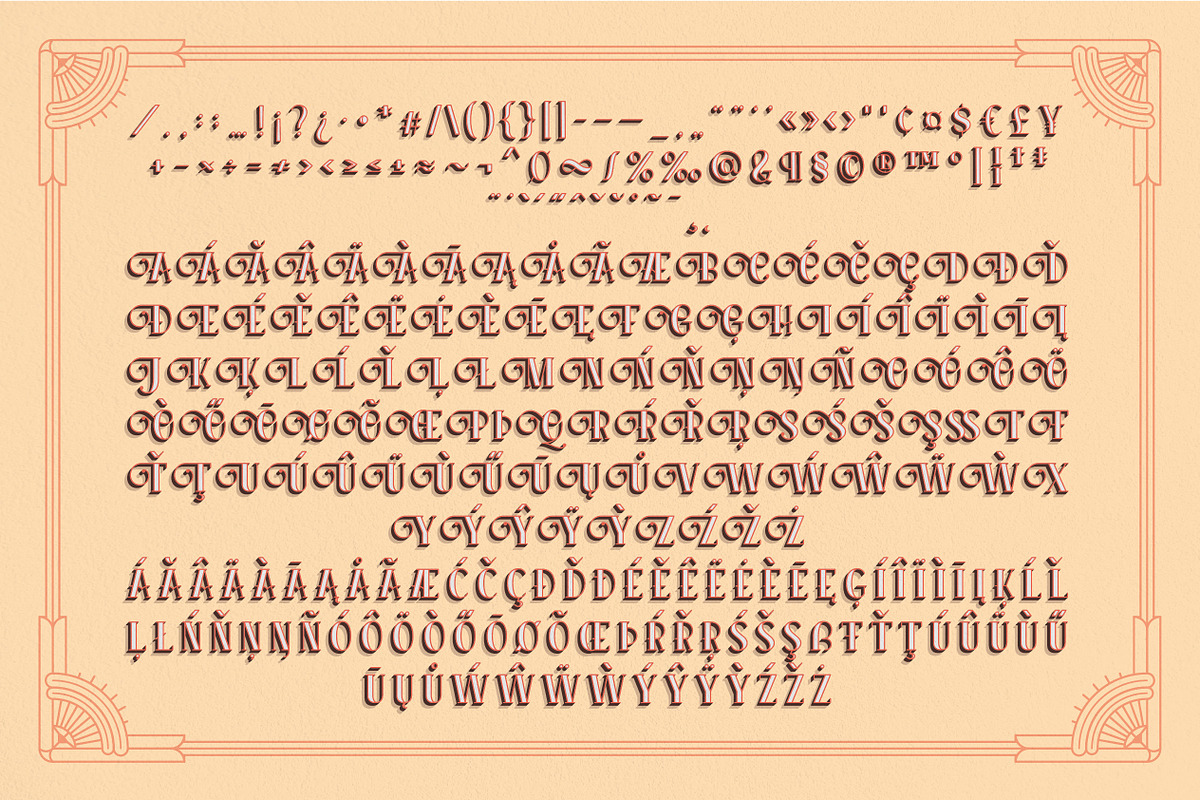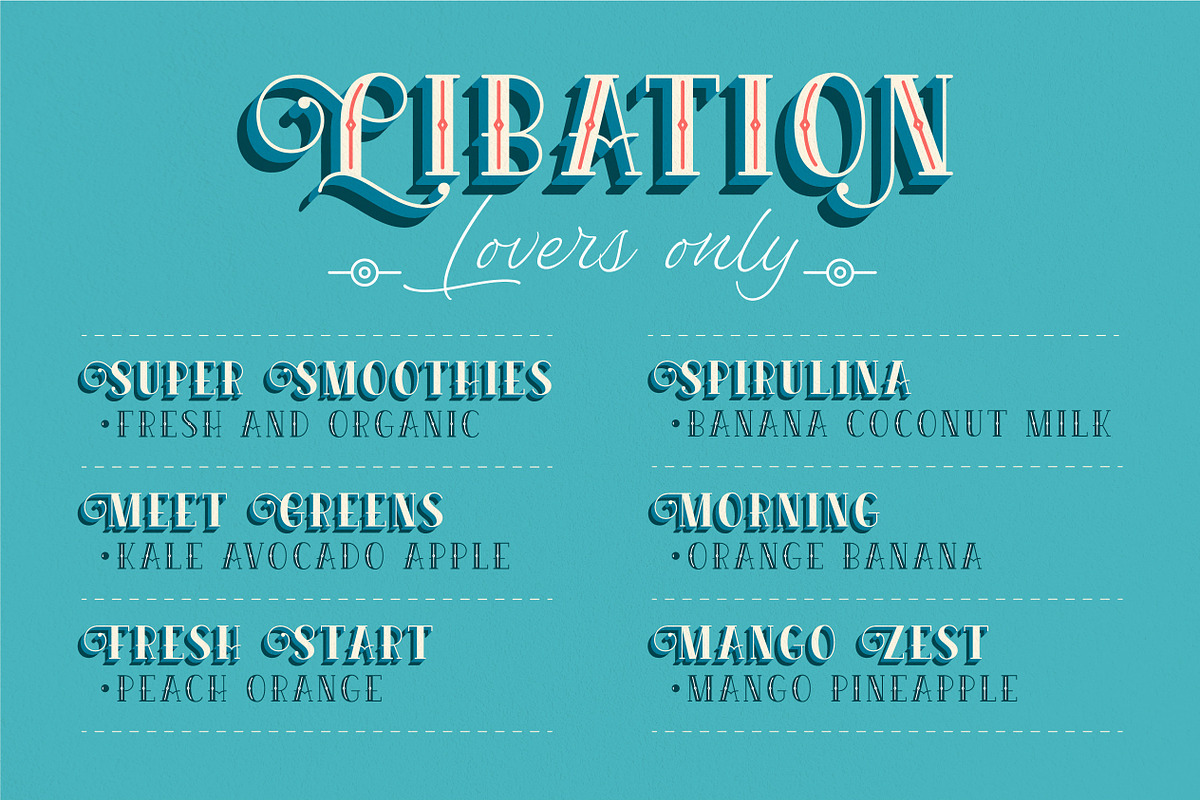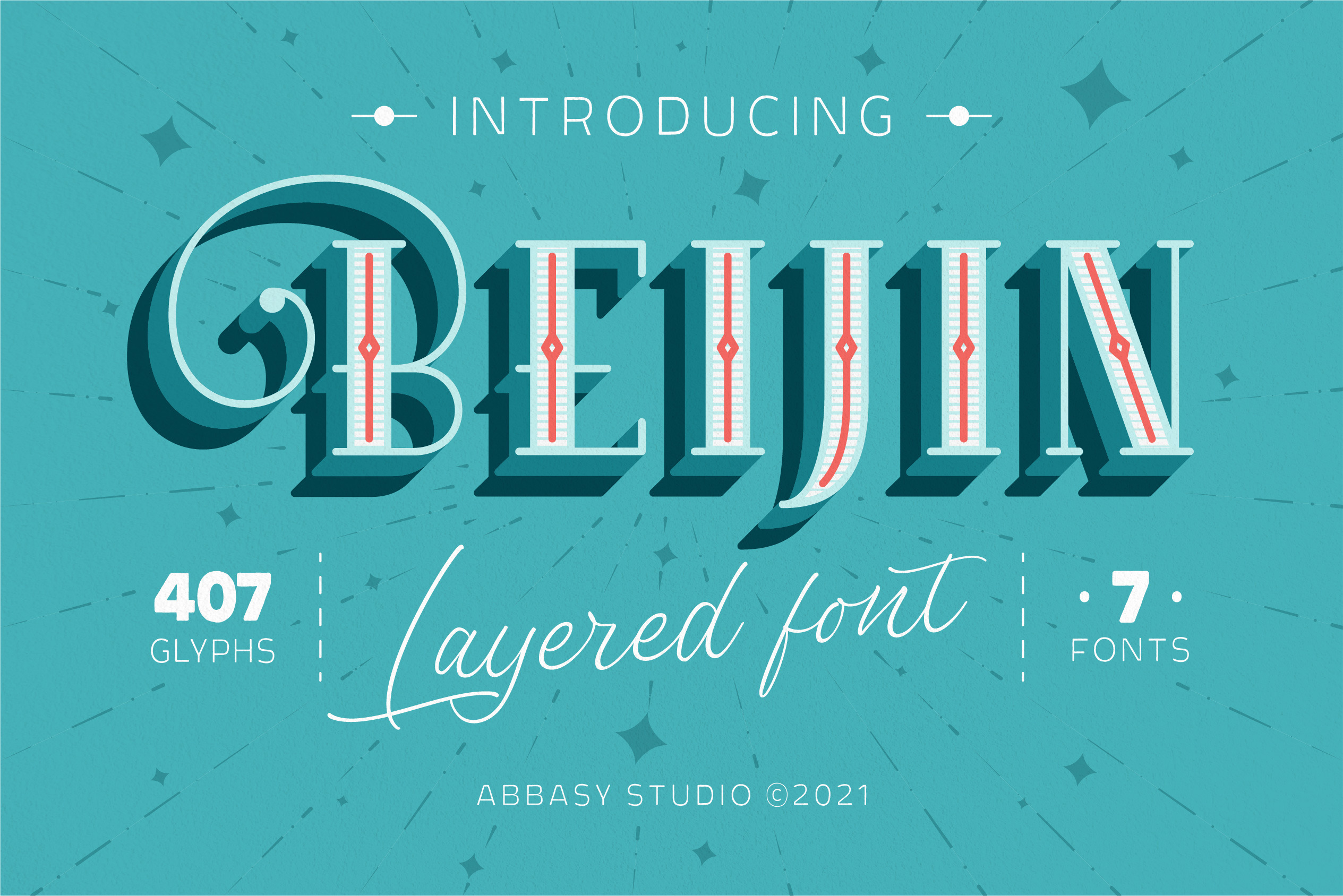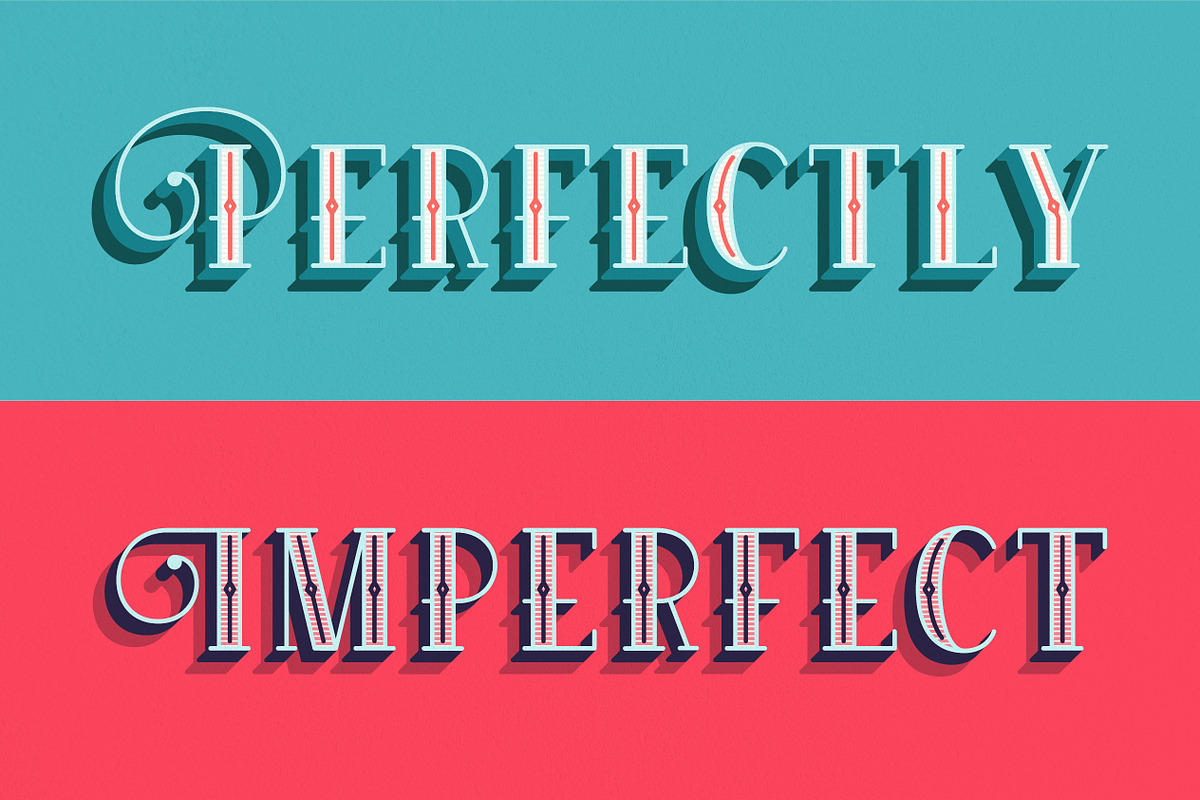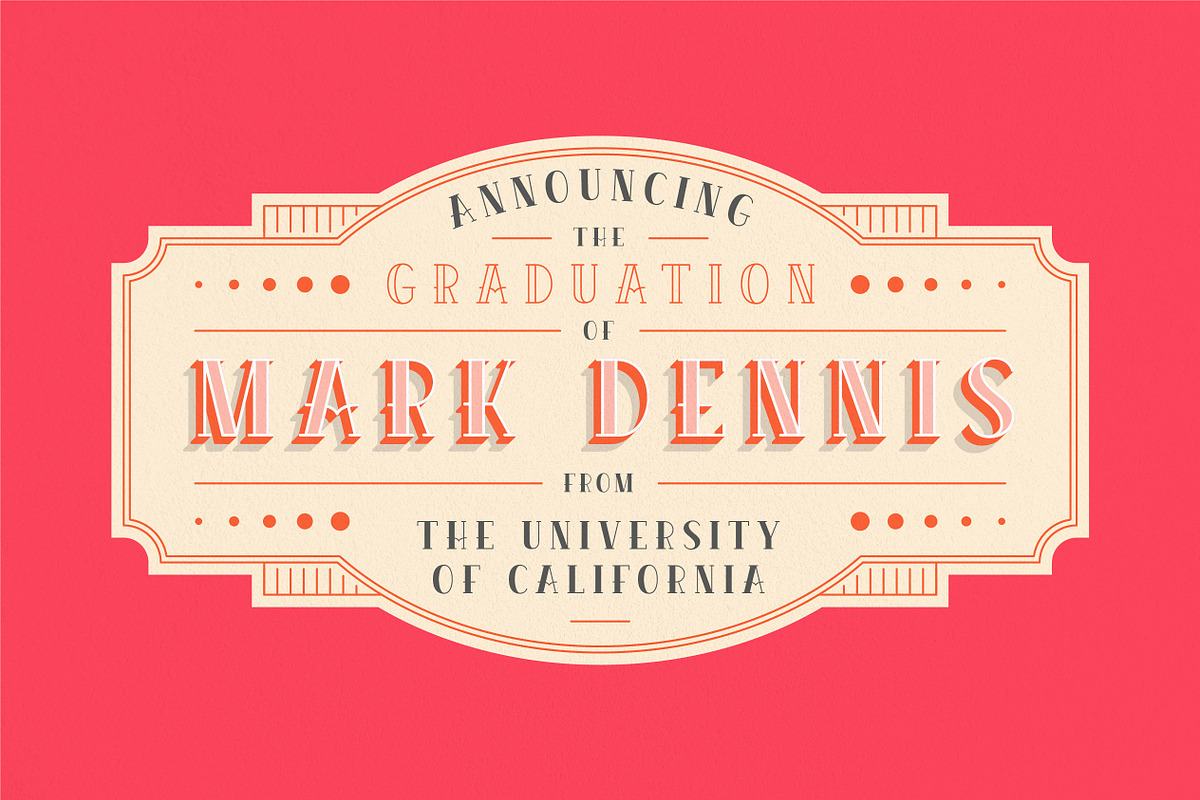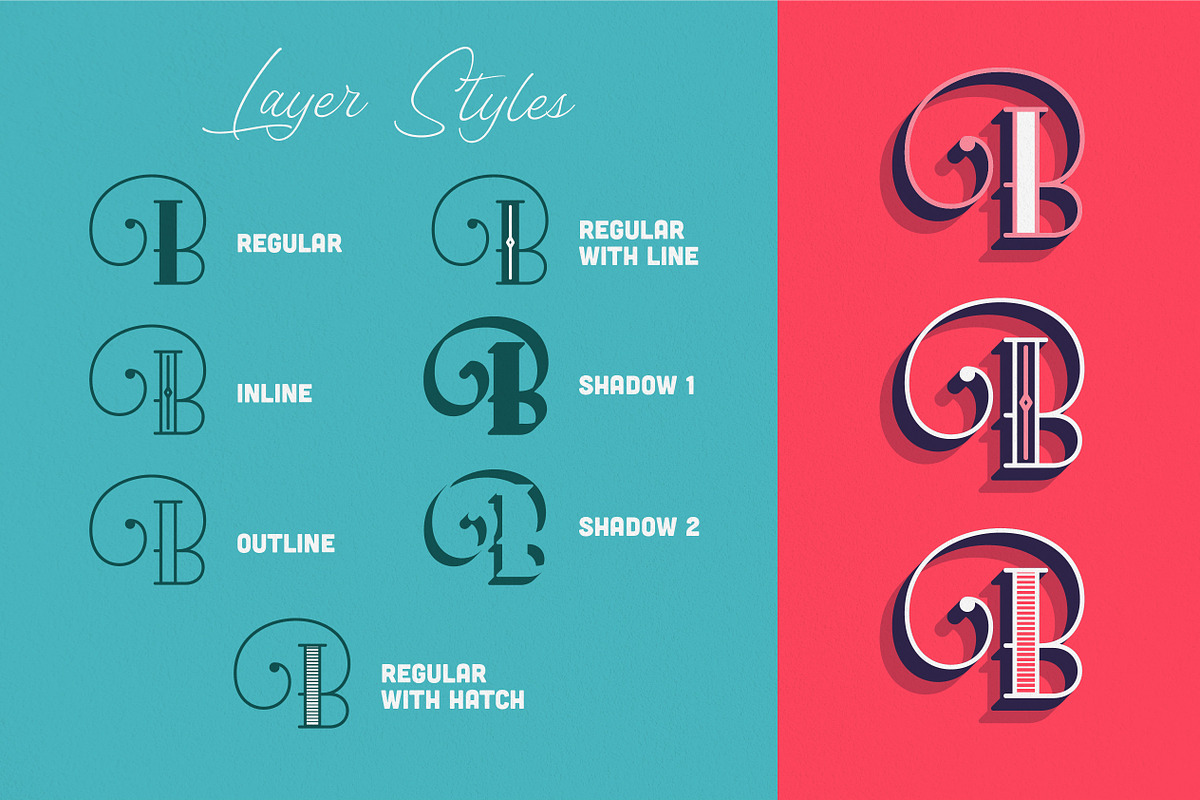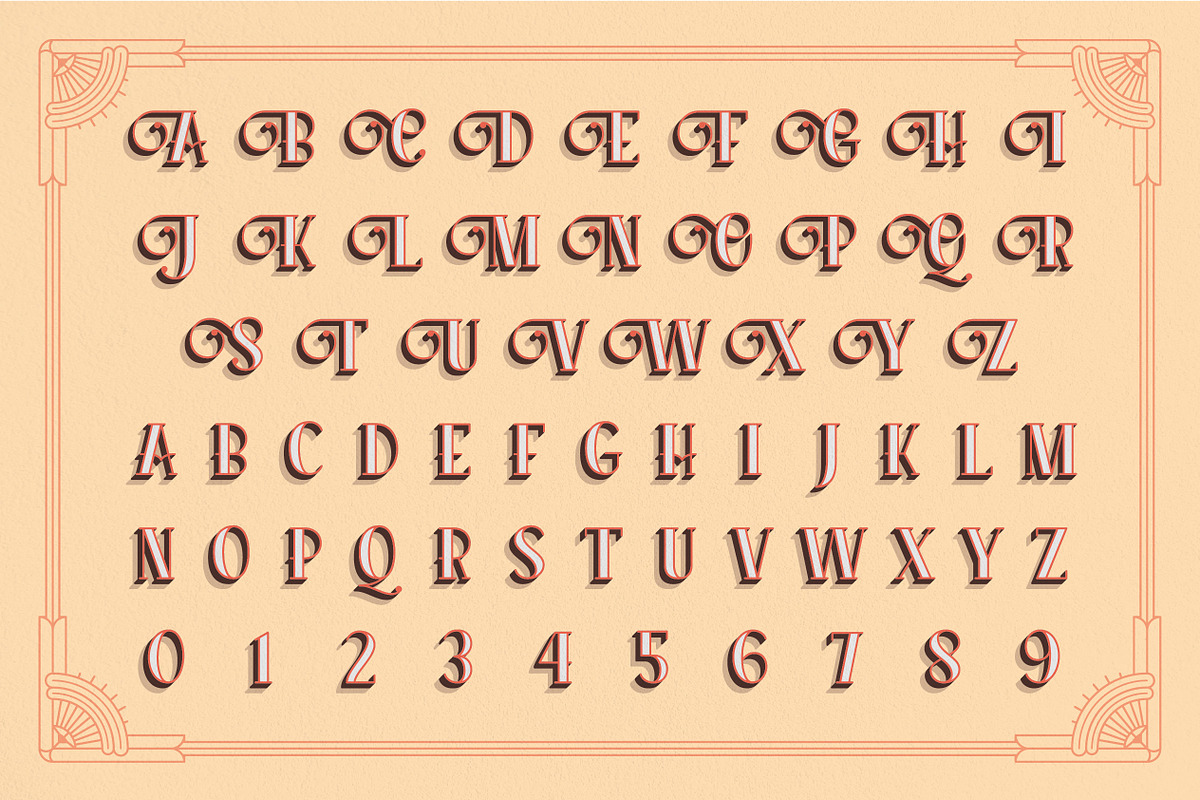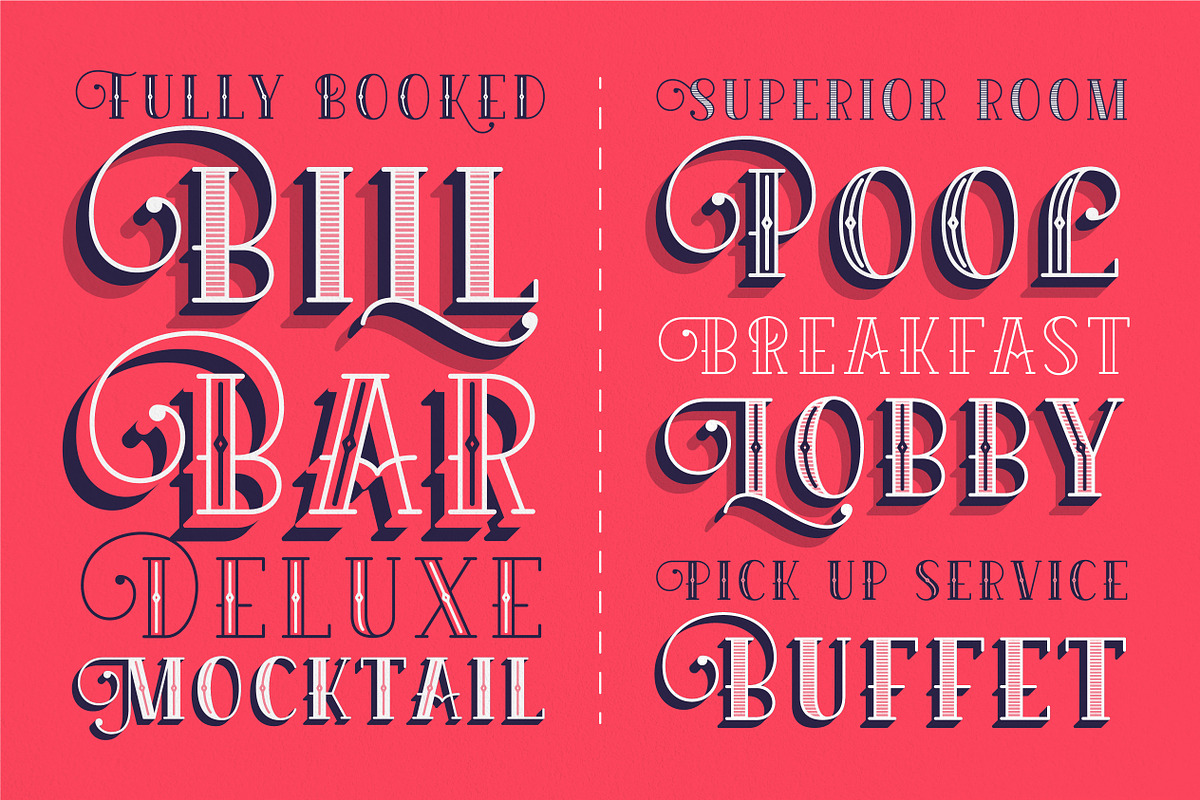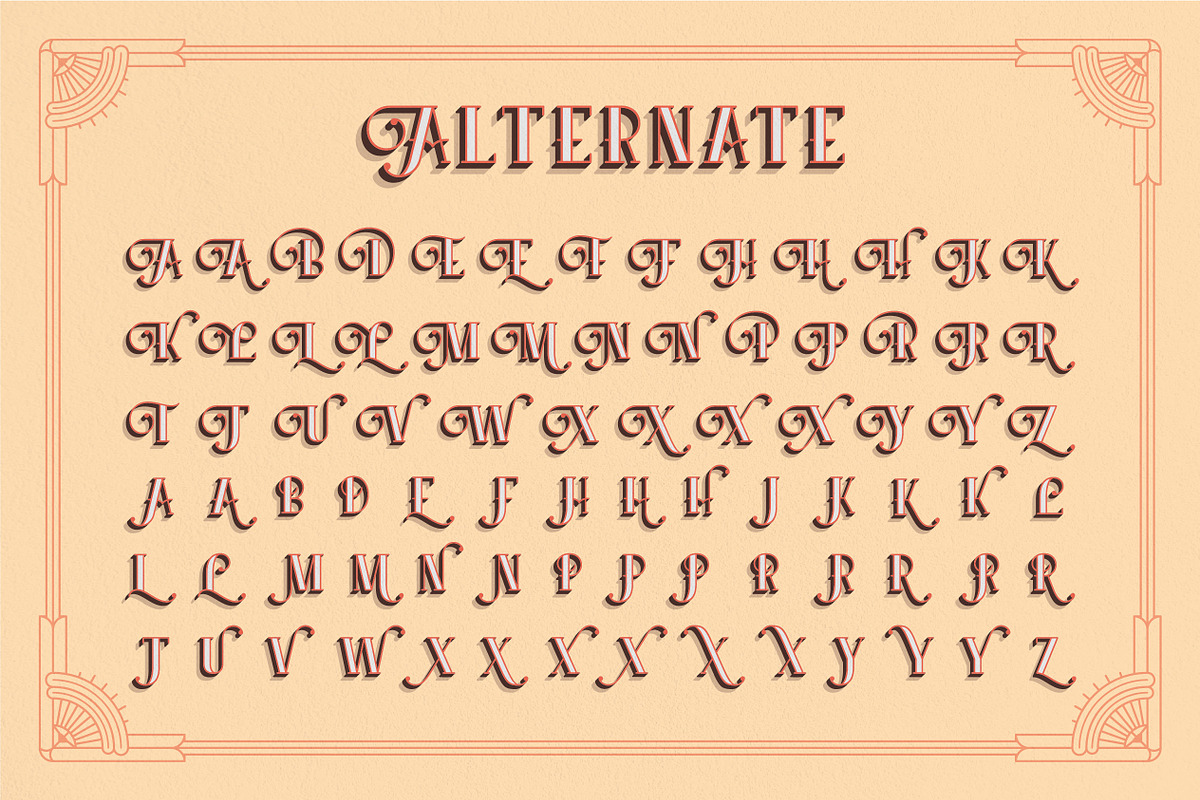
Beijin Layered Font
Introducing Beijin Layered Font Beijin is a serif font and comes with 7 layer style, that allows you to stack however you want. There are more than 407 glyphs in this font including Stylistic sets, Contextual Alternates etc. OpenType features with Stylistic Alternates, Contextual Alternate in some characters that allows you to mix and match pairs of letters to fit your design.
Beijin Layered Font is suitable for Logo, greeting cards, quotes, posters, branding, stationary, design title, blog header, art quote, typography art, modern envelope lettering or any purpose to make our art/design project look pretty and trendy.
Beijin Layered Font Include:
- Beijin Regular (Base)
- Beijin Hatch
- Beijin Inline
- Beijin Line
- Beijin Outline
- Beijin Shadow 1
- Beijin Shadow 2